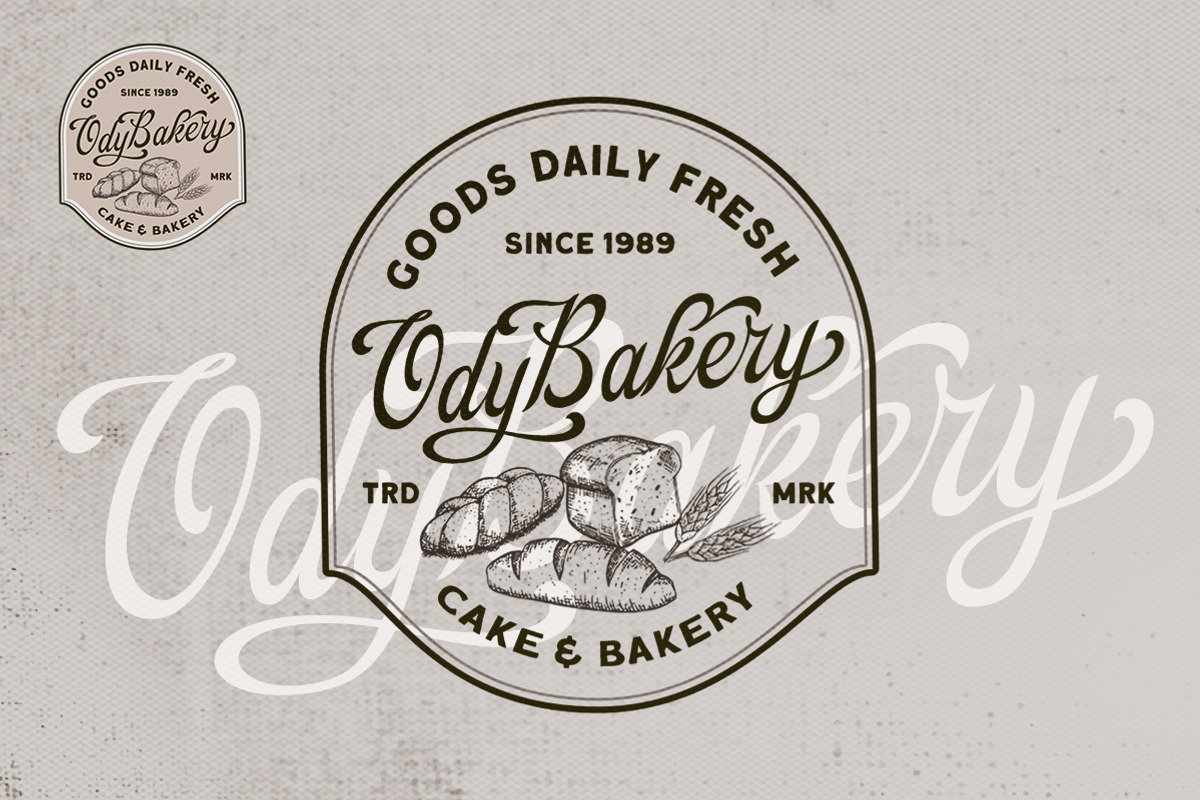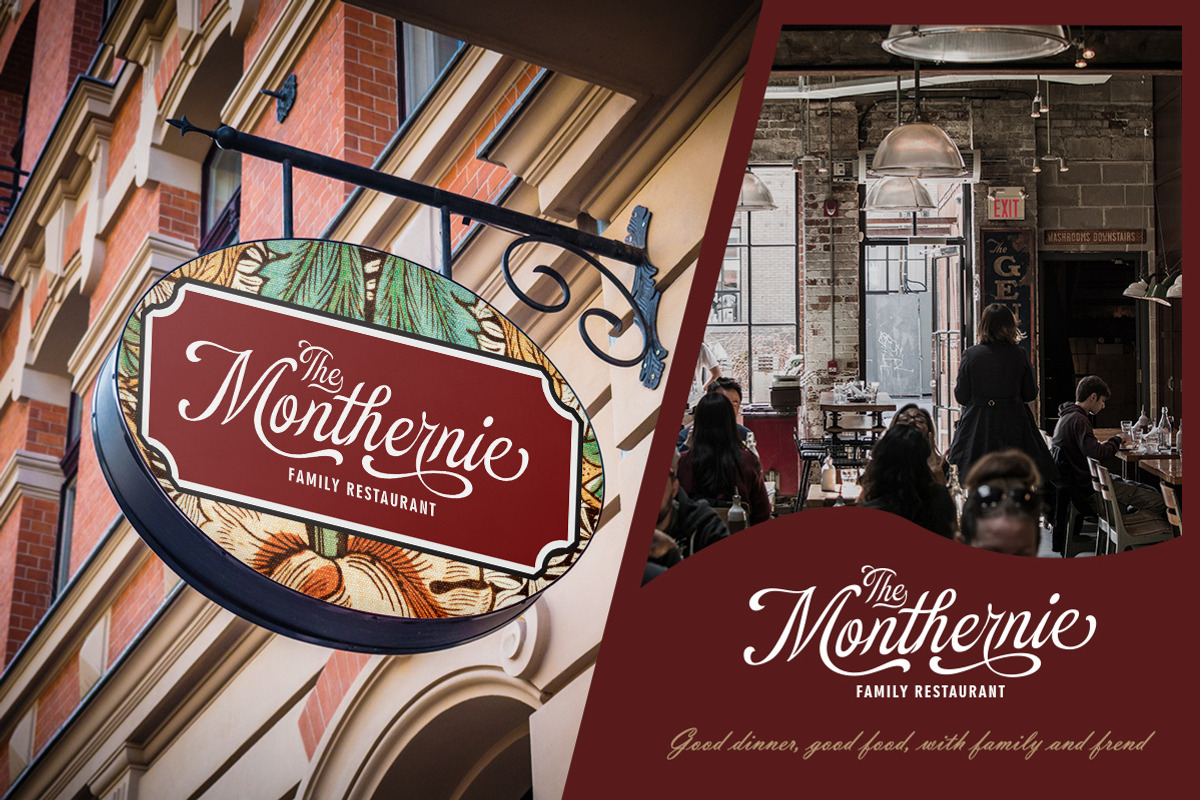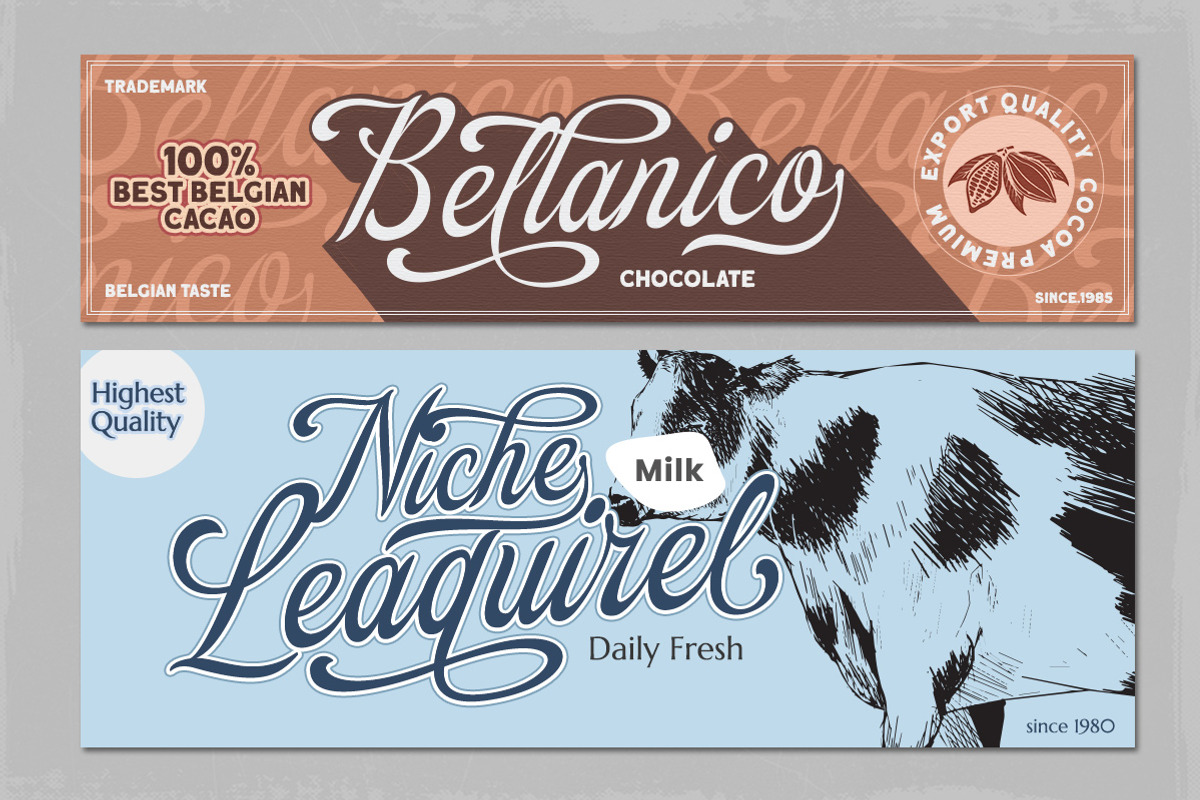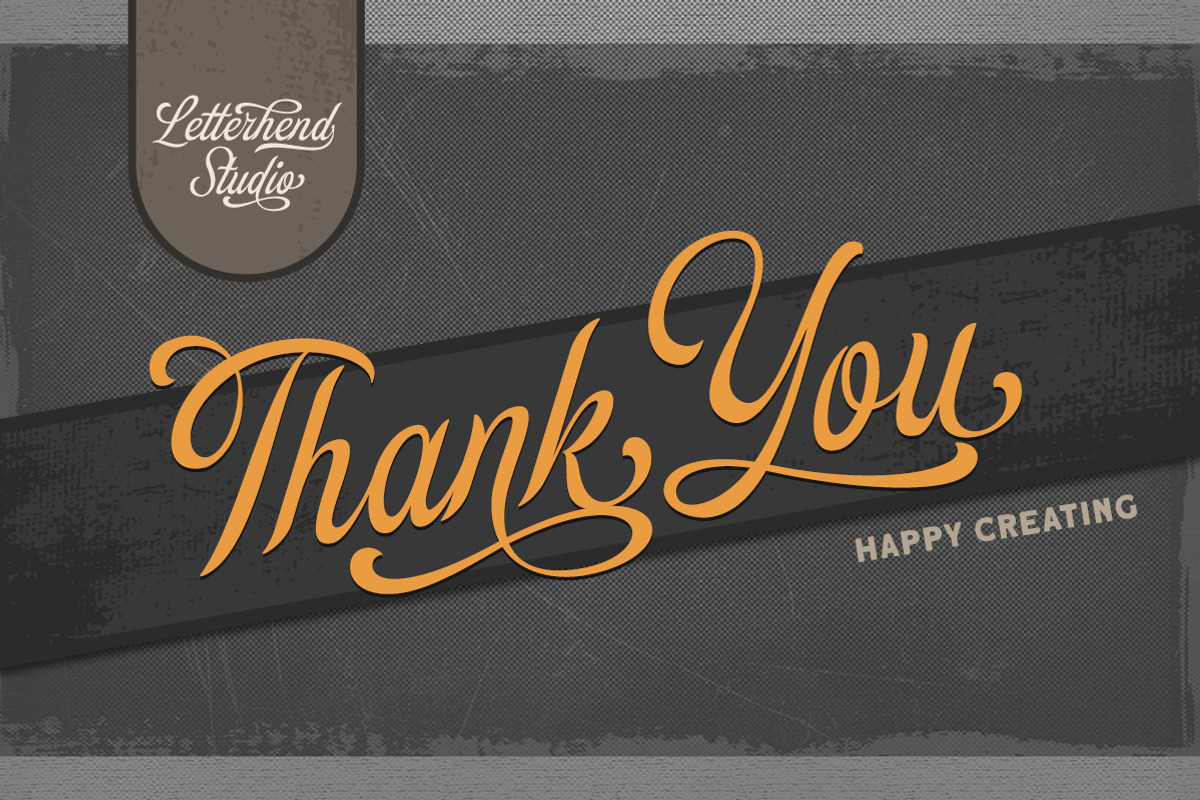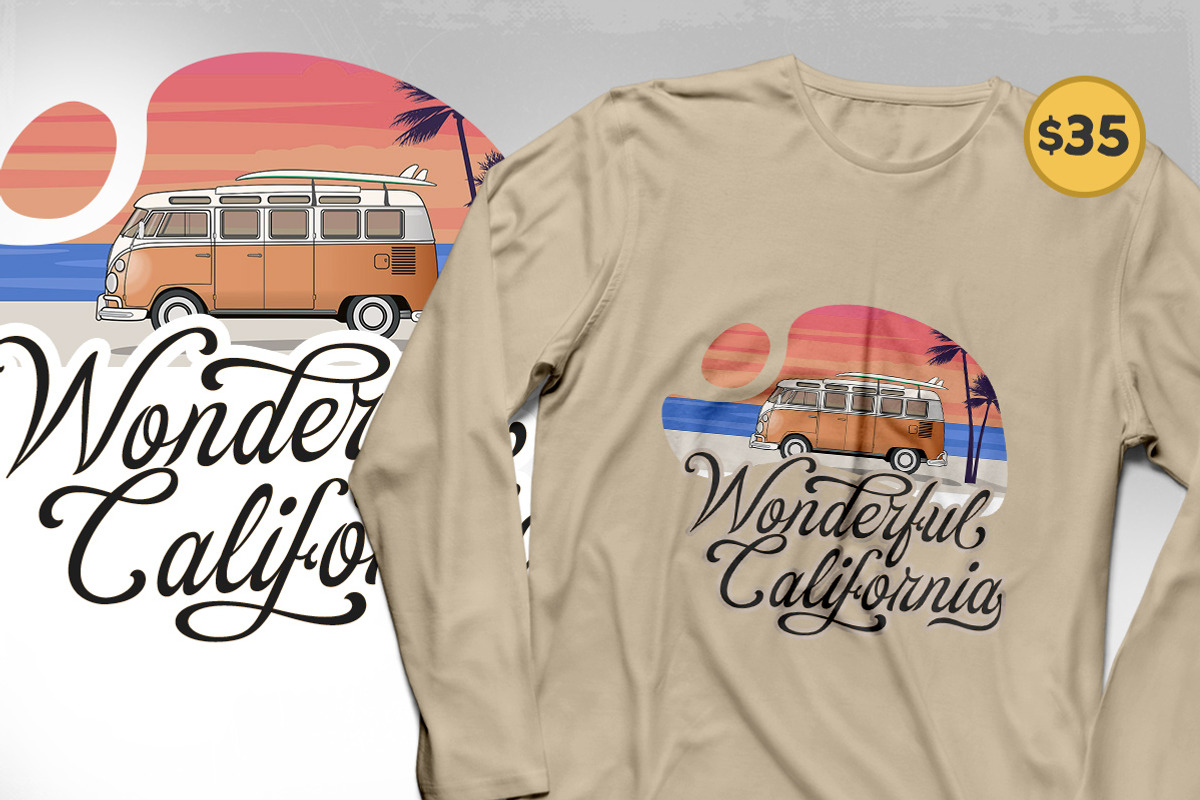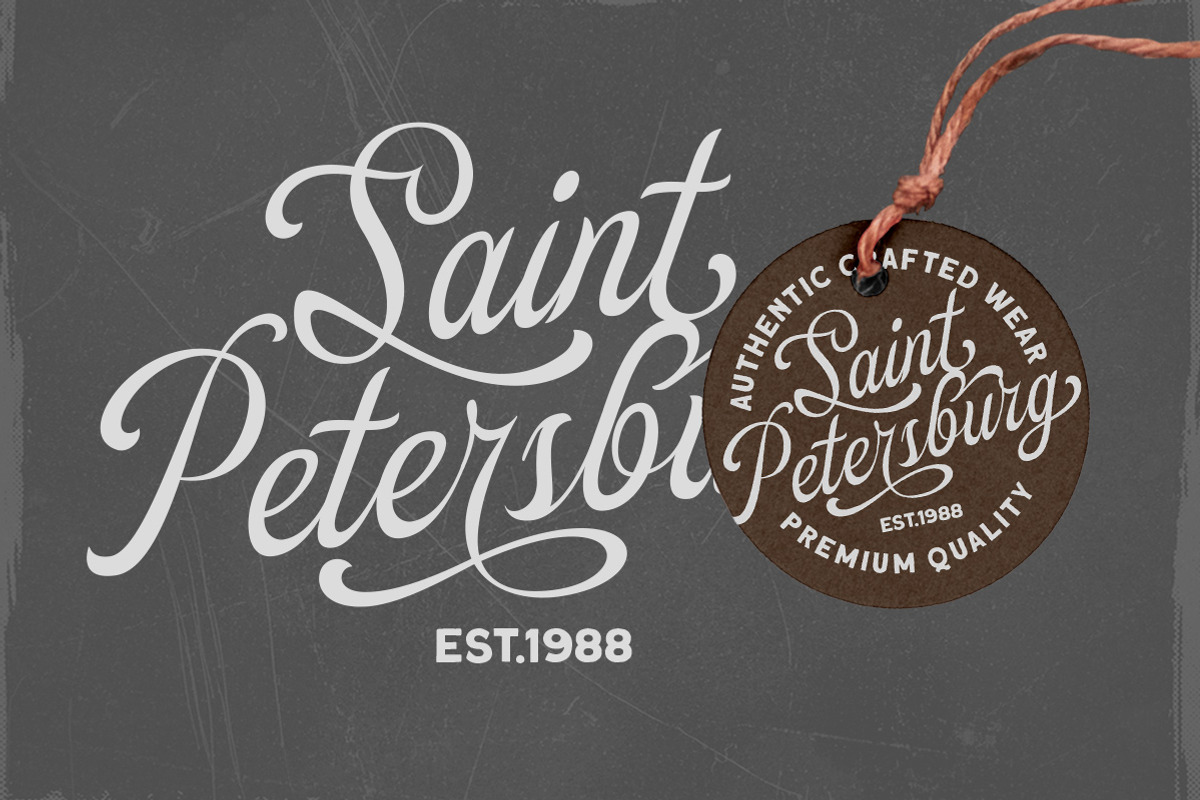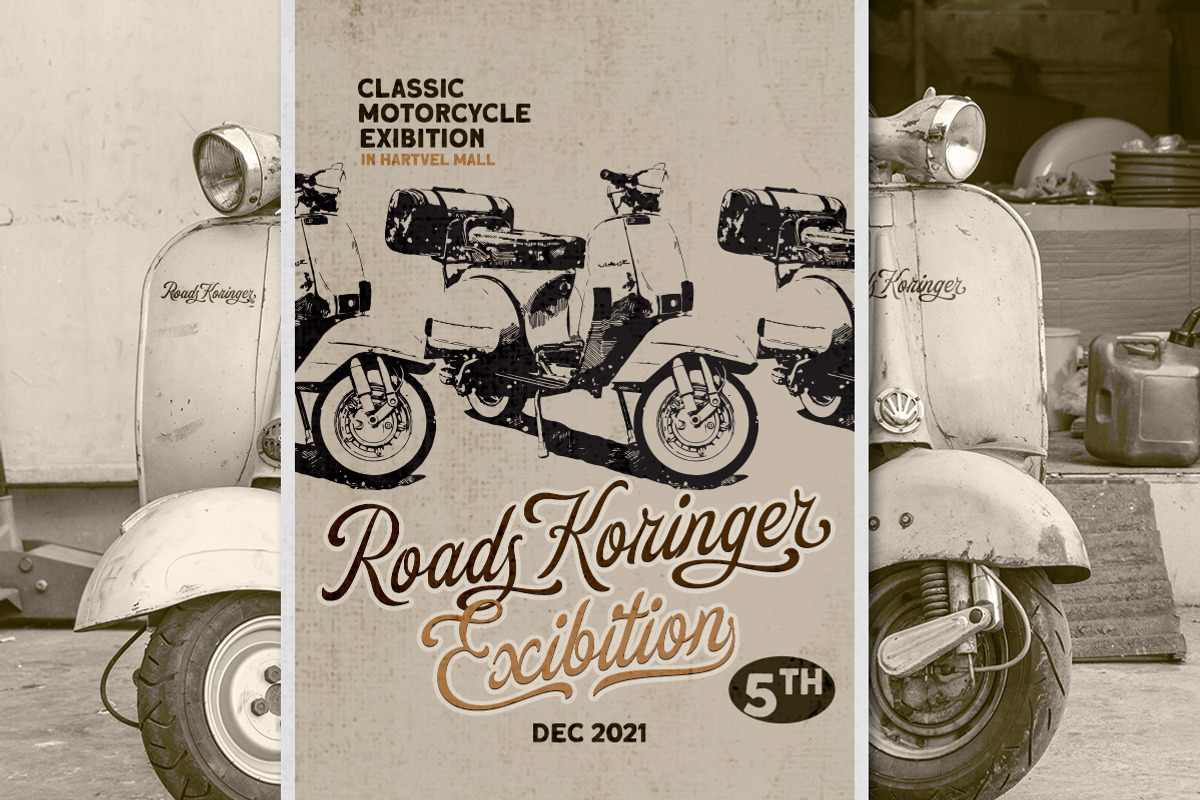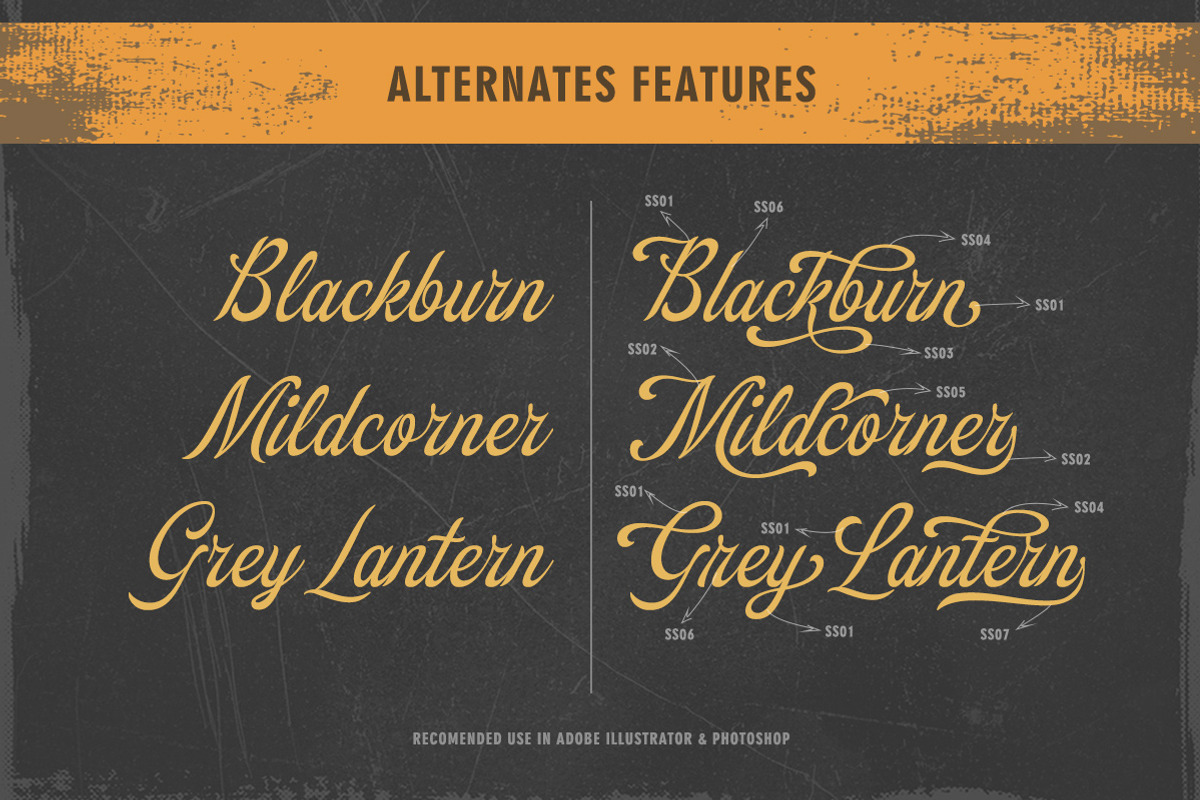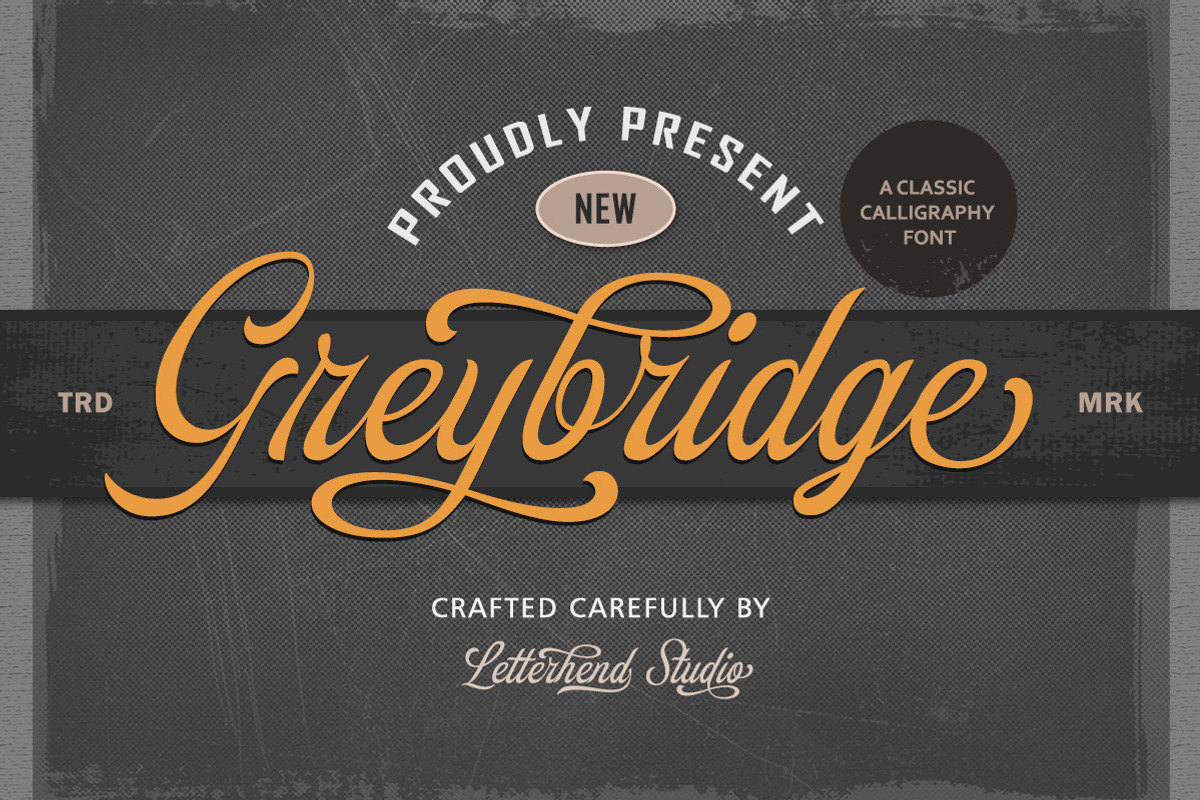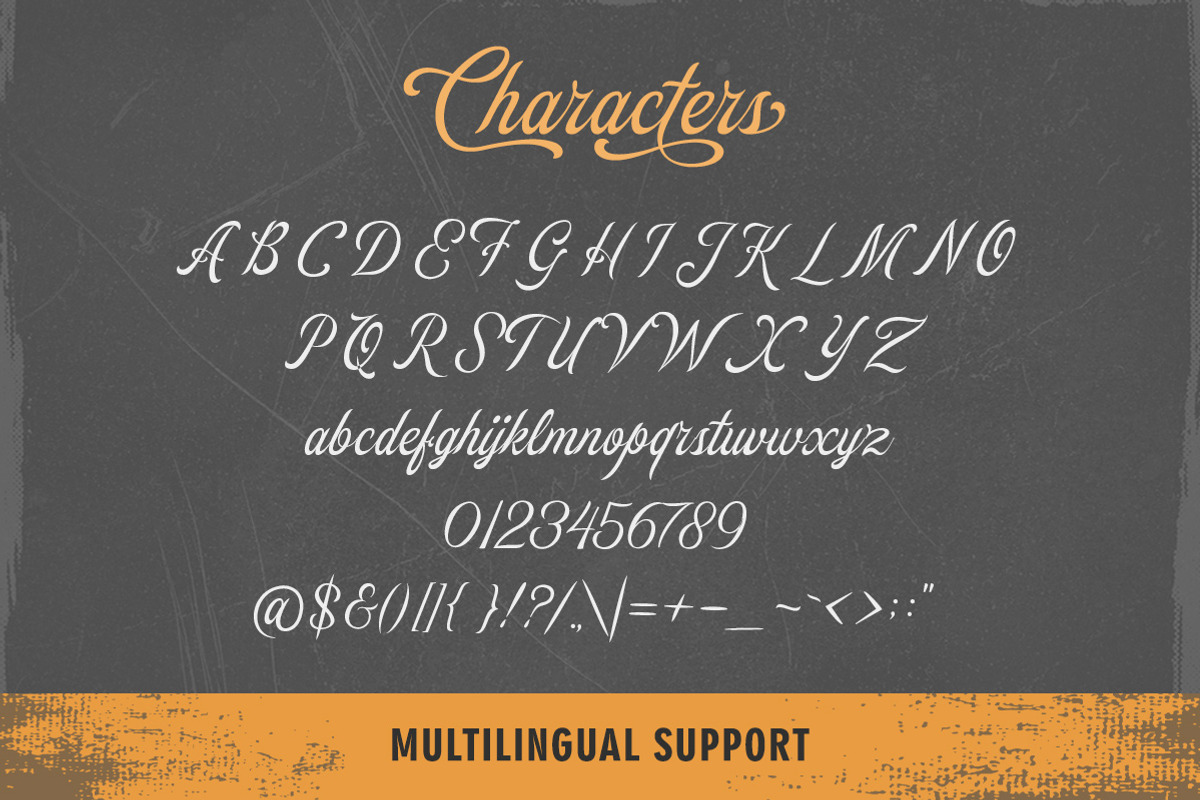
Greybridge - Classic Calligraphy
Introducing, Greybridge - Classic Calligraphy Typefce. This type of font perfectly made to be applied especially in logo, and the other various formal forms such as invitations, labels, logos, magazines, books, greeting / wedding cards, packaging, fashion, make up, stationery, novels, labels or any type of advertising purpose.
- alternates and swashes